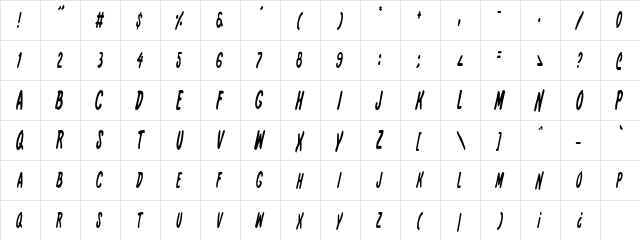
International Super Hero Cond Condensed
Design Context for International Super Hero Cond Typeface
International Super Hero Cond is a composed and adaptable typeface that performs quietly and consistently across a wide range of design contexts. Its narrow stance lets it pack a punch even in space-constrained designs.